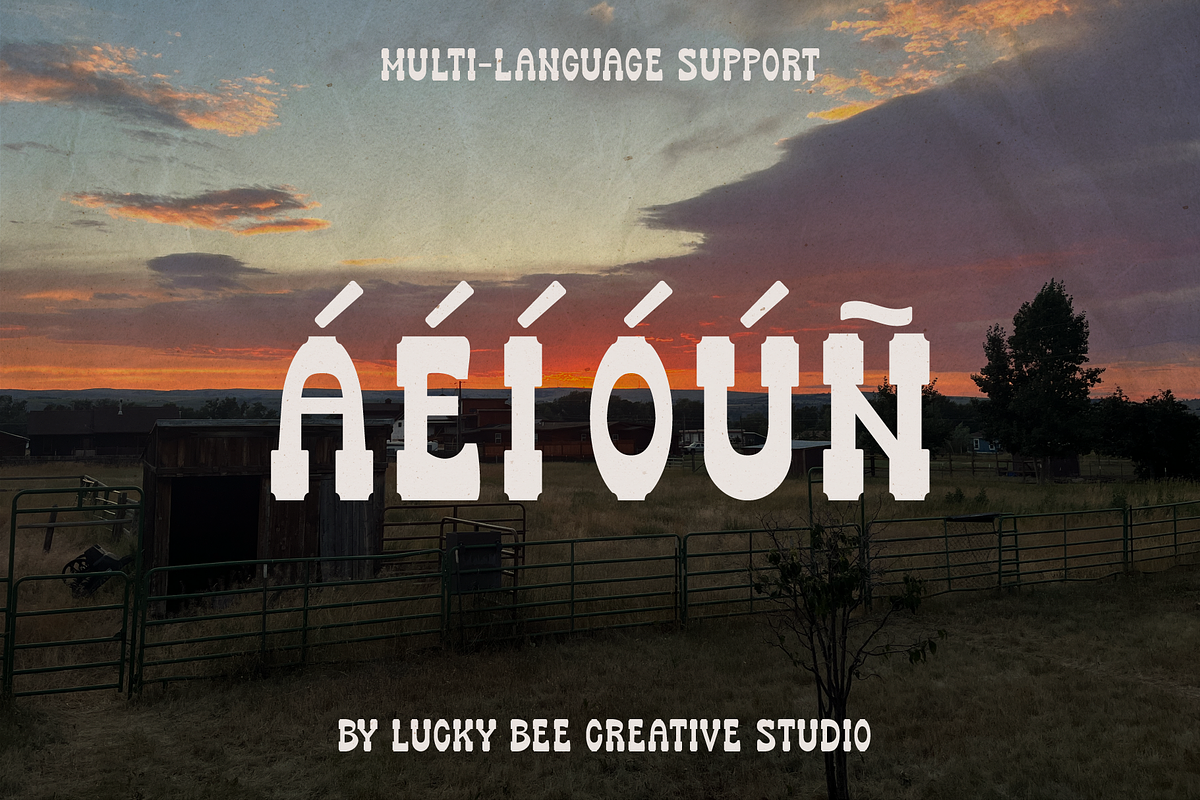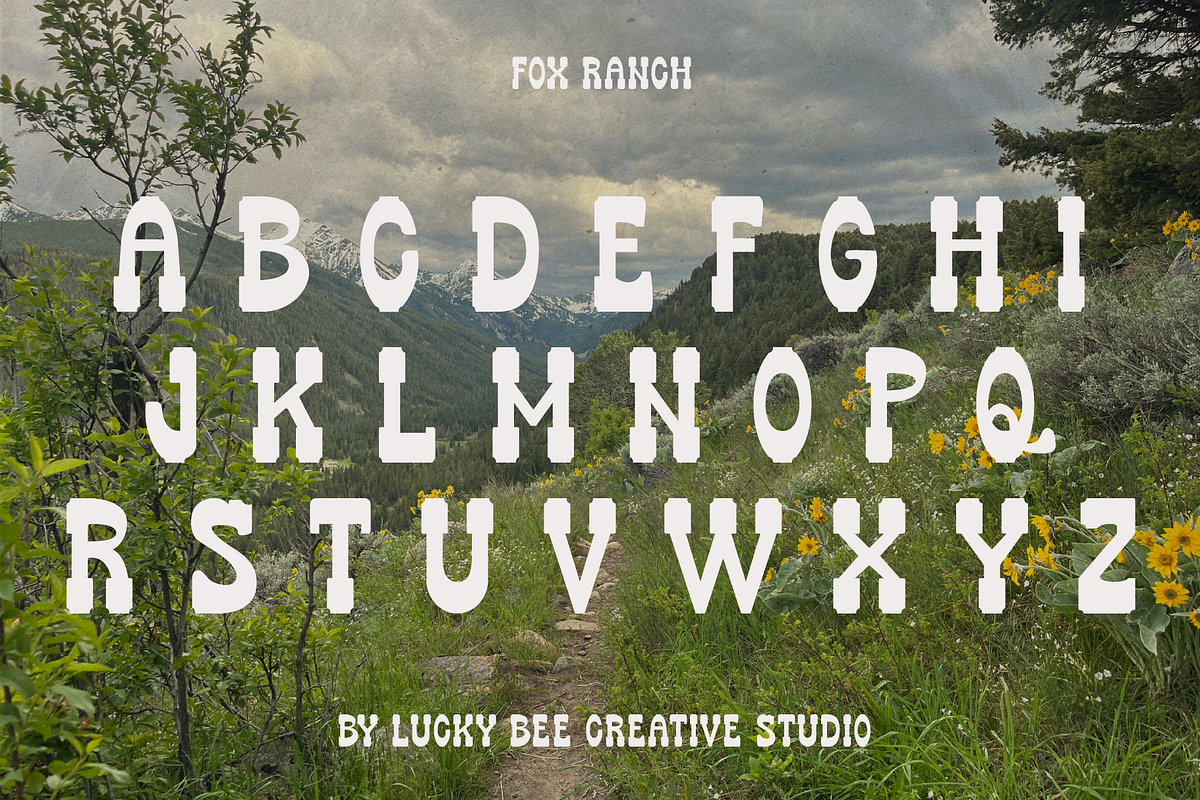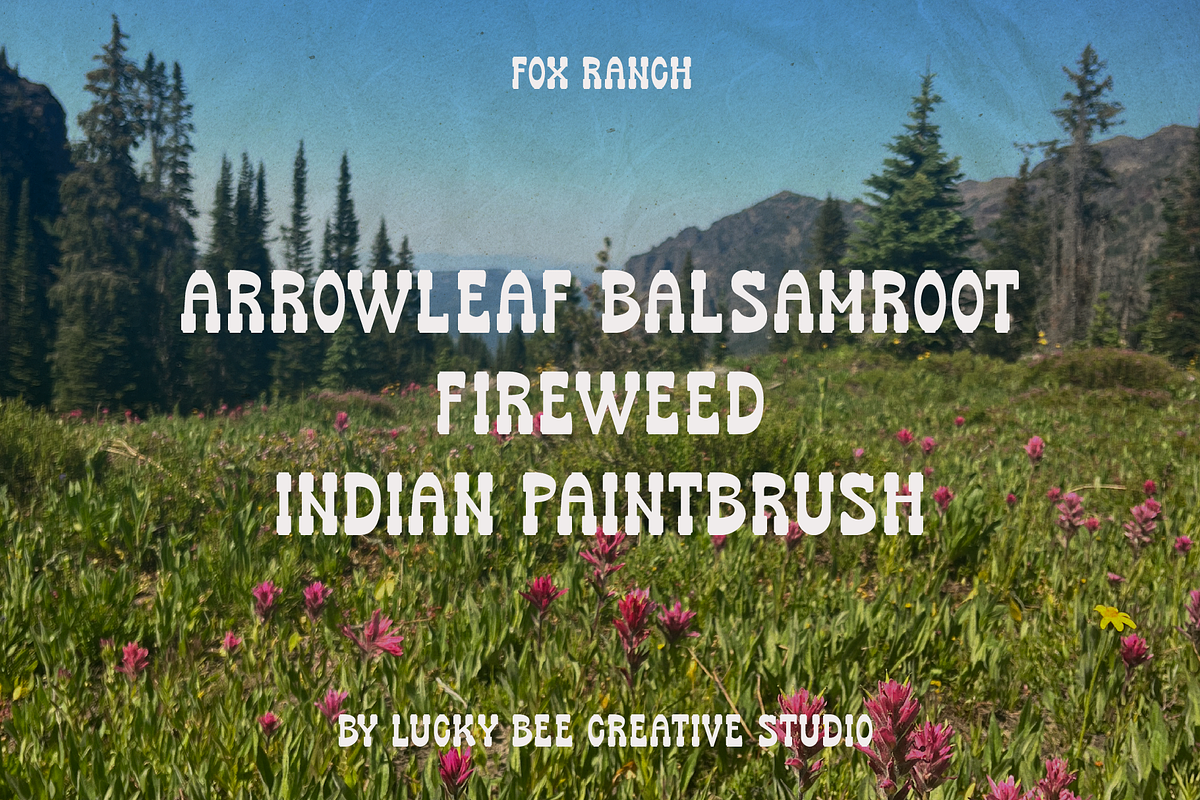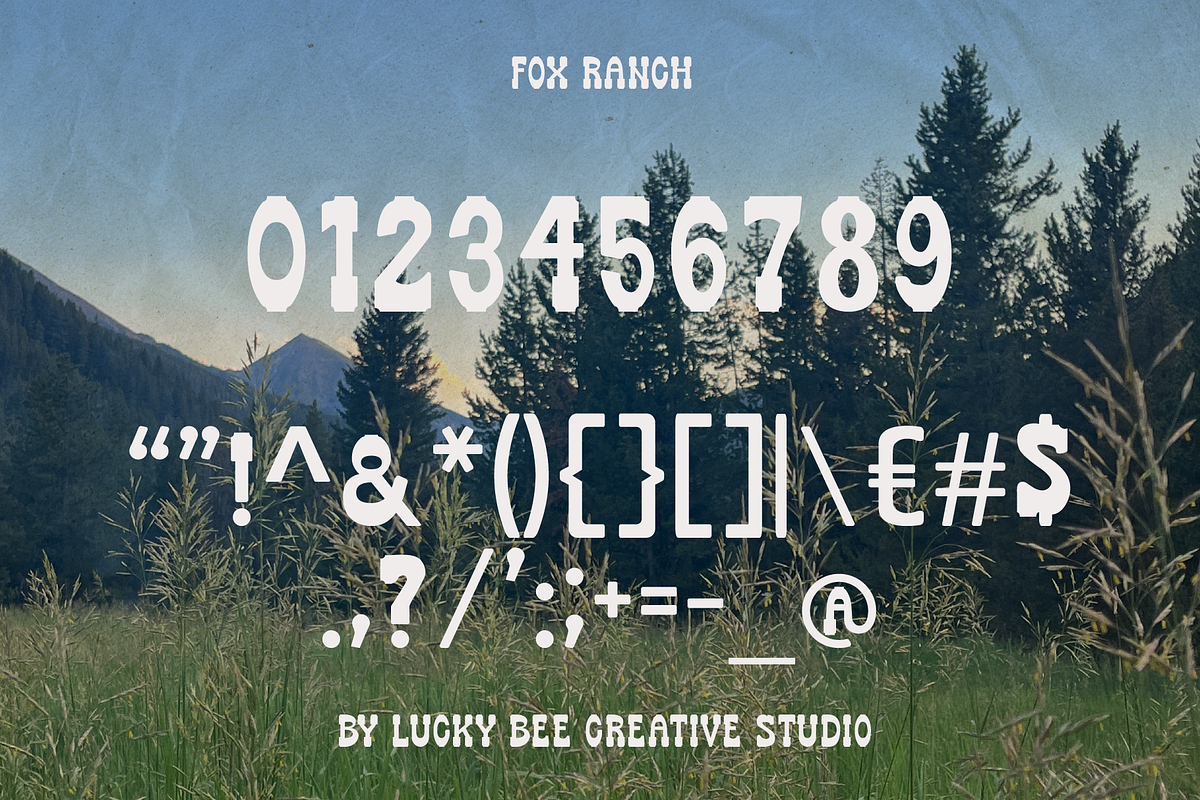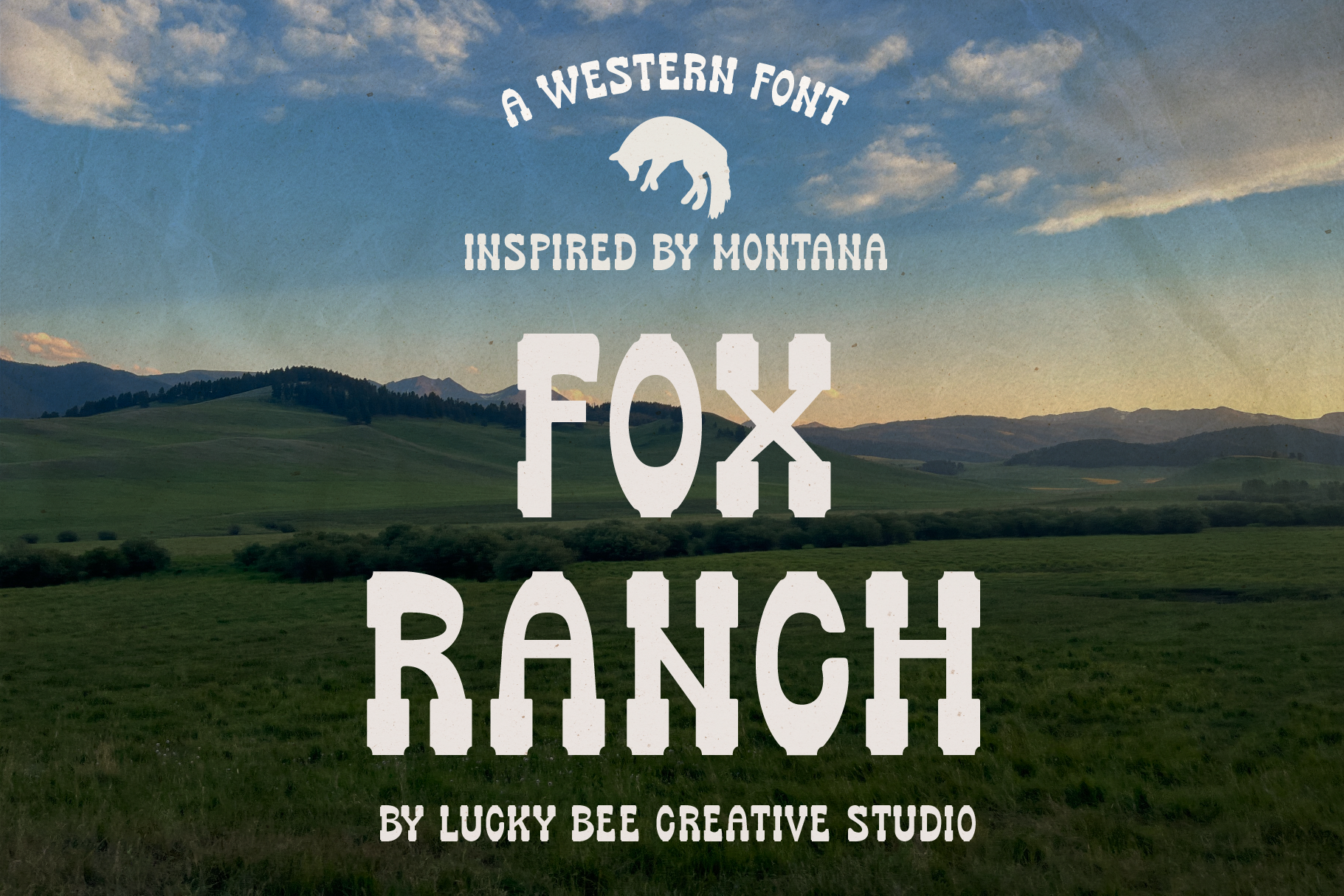
Fox Ranch | Retro Western Font
Introducing Fox Ranch, a western style slab serif typeface!
This retro, western typeface is made for western signage, logos, billboards, merchandise, and more.
Lucky Bee Creative Studio is based out of Bozeman, Montana and we're constantly drawing inspiration from the history and nature found here.